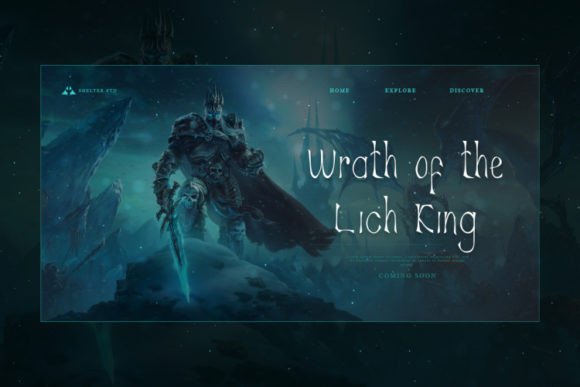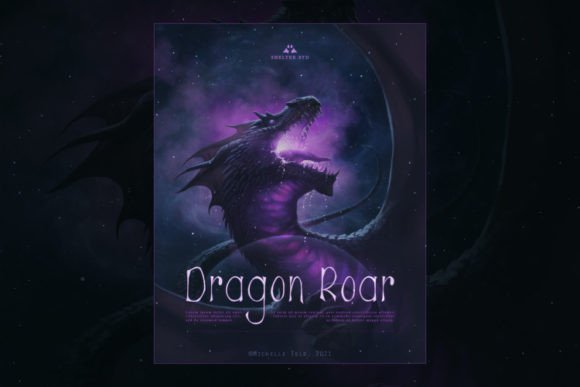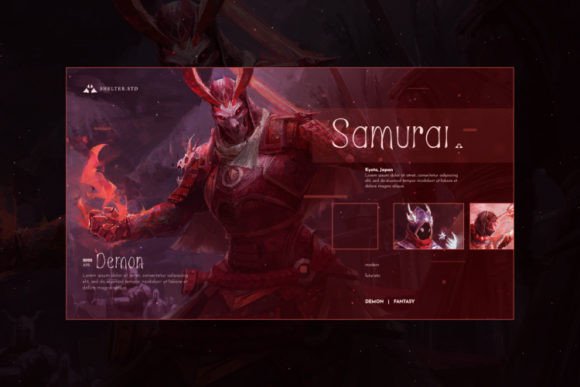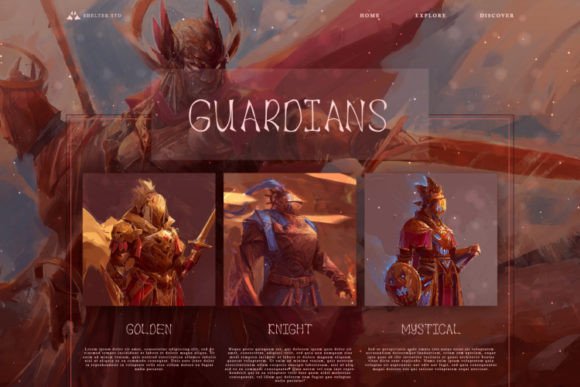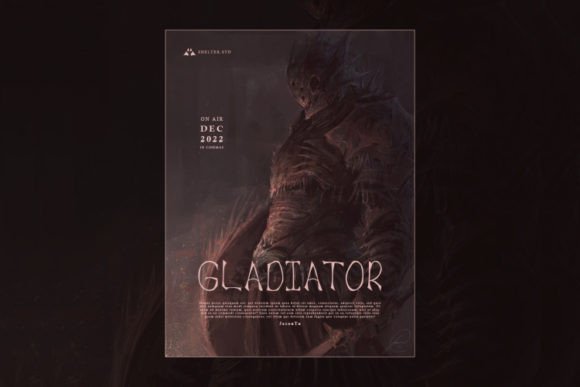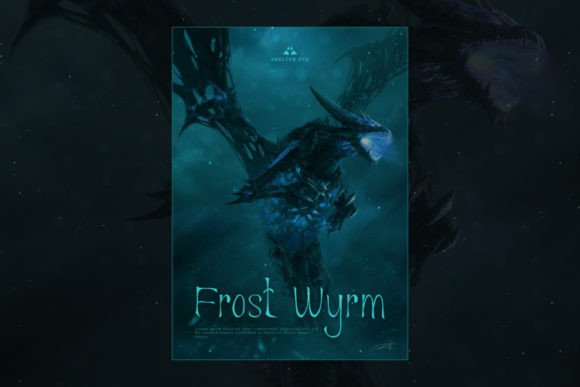
Dumbledoor Font: Adding a Touch of Magic to Your Designs
Are you looking for a font that can add a dash of magic to your designs? Look no further than the Dumbledoor Font! This fun and magical display font is perfect for creating eye-catching logos, branding, and quotes that will leave a lasting impression on your audience. In this article, we’ll take a closer look at the Dumbledoor Font, its unique features, and how you can use it to take your designs to the next level.
What is Dumbledoor Font?
Dumbledoor Font is a display font that is designed to add a touch of whimsy and magic to your designs. It’s a fun and playful font that’s perfect for creating eye-catching headlines, logos, and branding materials. The font has a unique and beautiful touch, with every letter carefully crafted to make your design come alive.
Unique Features of Dumbledoor Font
So, what makes Dumbledoor Font so special? Here are just a few of its unique features:
- Unique Lettering**: Each letter in the Dumbledoor Font has a unique and beautiful touch, making it perfect for creating eye-catching designs.
- Magical Feel**: The font has a magical feel that’s perfect for creating designs that are fun, playful, and enchanting.
- Display Font**: Dumbledoor Font is a display font, making it perfect for headlines, logos, and branding materials.
- Easy to Read**: Despite its unique and playful design, the Dumbledoor Font is easy to read, making it perfect for use in a variety of design applications.
Uses for Dumbledoor Font
So, how can you use the Dumbledoor Font in your designs? Here are just a few ideas:
- Logos**: The Dumbledoor Font is perfect for creating eye-catching logos that will help your brand stand out.
- Branding**: Use the Dumbledoor Font to create branding materials that are fun, playful, and magical.
- Quotes**: The Dumbledoor Font is perfect for creating eye-catching quotes that will add a touch of magic to your designs.
- Headlines**: Use the Dumbledoor Font to create headlines that are fun, playful, and attention-grabbing.
Tips for Using Dumbledoor Font
Here are a few tips for using the Dumbledoor Font in your designs:
- Use it Sparingly**: Because the Dumbledoor Font is a display font, it’s best to use it sparingly. Use it for headlines, logos, and branding materials, but stick to a more traditional font for body copy.
- Experiment with Colors**: The Dumbledoor Font looks great in a variety of colors, so don’t be afraid to experiment. Try using it in bright, bold colors to add a touch of magic to your designs.
- Pair it with Other Fonts**: The Dumbledoor Font pairs well with a variety of other fonts, so don’t be afraid to experiment. Try pairing it with a more traditional font to create a fun and playful contrast.
In conclusion, the Dumbledoor Font is a fun and magical display font that’s perfect for adding a touch of whimsy to your designs. With its unique lettering, magical feel, and ease of use, it’s the perfect choice for designers and crafters who want to create eye-catching logos, branding, and quotes. So why not give it a try? Download the Dumbledoor Font today and see how it can take your designs to the next level!